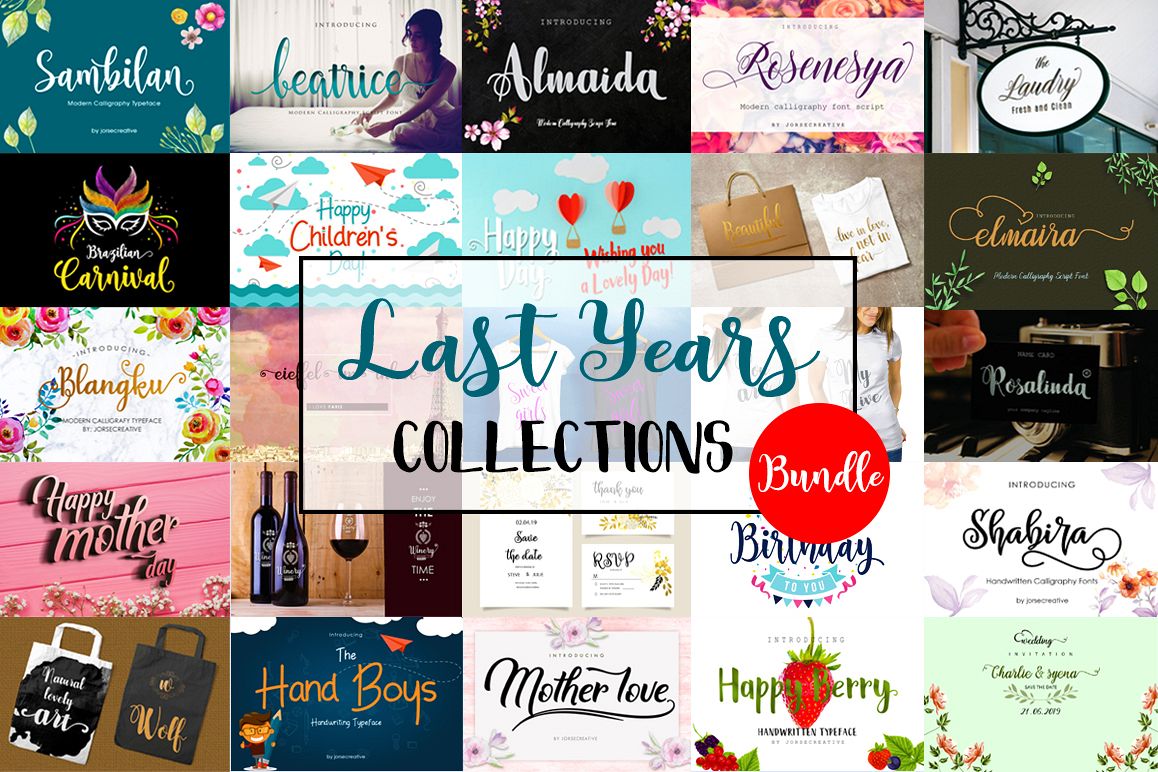
Last years Collections Bundle
Shabira
Sambilan
Rosenesya
HappyBerry
Motherloveswash
Motherlove
Elmaira
Blangku
HandBoys
Beatrice
Almaida
Last Years Collections Bundle
The best-selling fonts here are your chance to get a large number of best-selling fonts.
This package contains 10 Font Scripts. Some of the best-selling fonts. With hundreds of glyphs, including alternatives, ligatures, swash, contextual alternatives and international language support. This can be accessed by using OpenType smart programs such as Adobe Illustrator, Adobe InDesign, CorelDraw X6-X7, Microsoft Word.